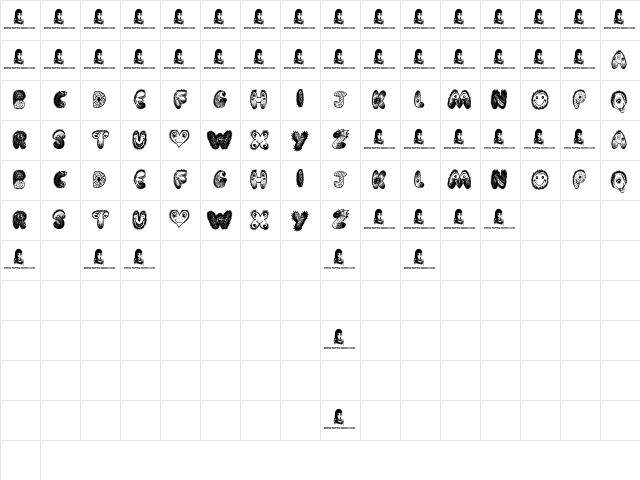
Complete Cartoon Freak Regular glyph index. Displaying only characters natively supported by Cartoon Freak Regular font.
Cartoon Freak has an approachable, lighthearted character - its loose, expressive forms are well-suited to children's content, casual branding, and fun-first design.
Font Pairing: Pairs well with a rounded or humanist sans for body copy, maintaining the friendly tone without relying on Cartoon Freak to carry extended reading.
Pro Tip: Use Cartoon Freak at larger display sizes where its expressive character can land. Pair with a clean, simple sans for body copy to maintain readability.